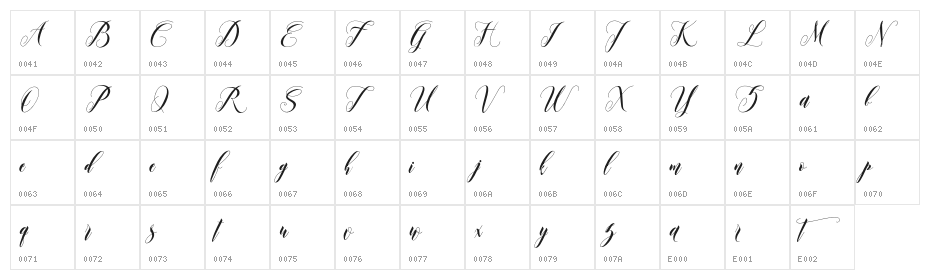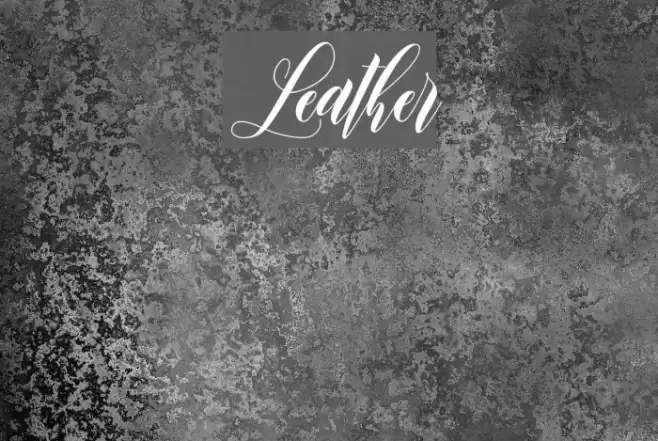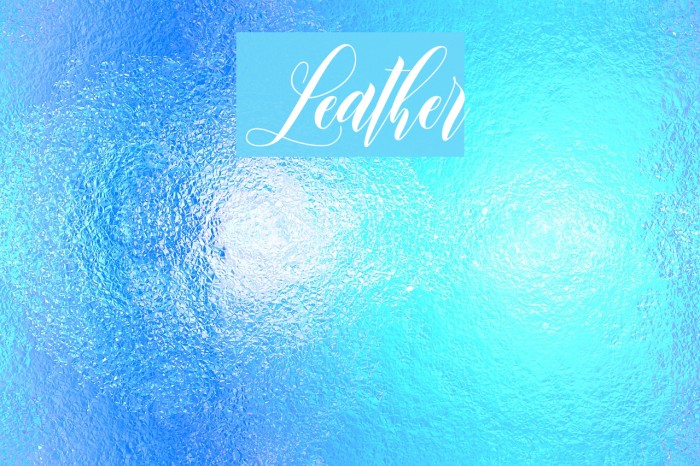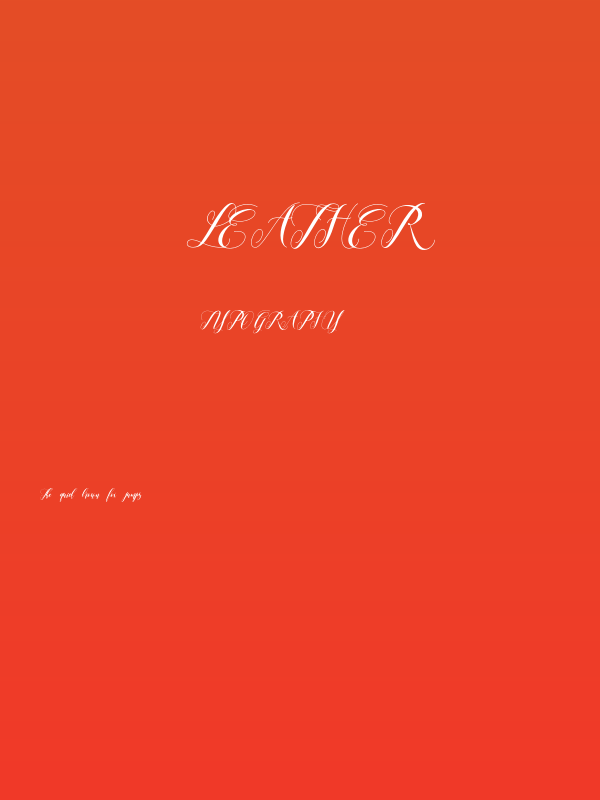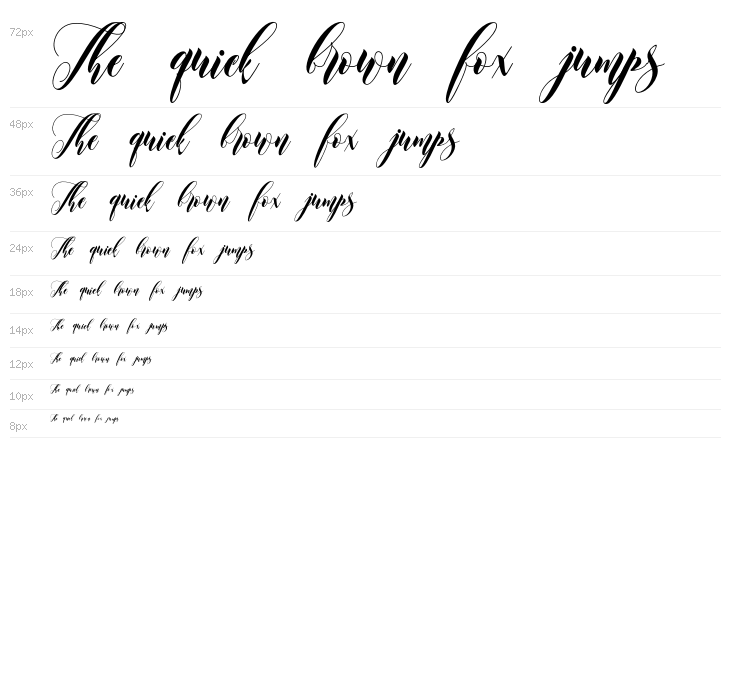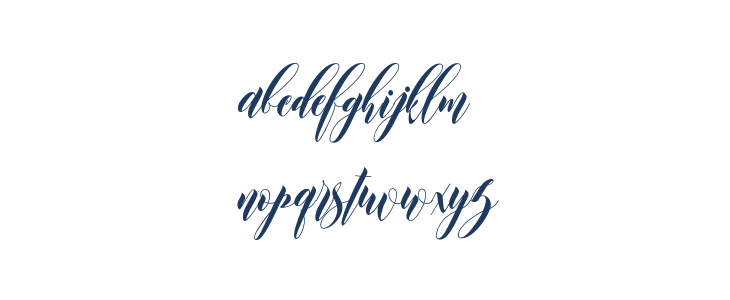
Leather Font
Leather Description
This elegant script font features intricate, flowing letterforms with high contrast between thick and thin strokes. The uppercase letters are adorned with elaborate swashes and flourishes, giving them a sophisticated and decorative appearance. The lowercase letters maintain a graceful, cursive style that complements the uppercase, with smooth connections between characters. The overall design exudes a sense of luxury and refinement, making it ideal for formal invitations, branding, and high-end product packaging. The font's artistic flair and attention to detail make it a standout choice for projects that require a touch of elegance.
| Proposed Projects | Ideal for wedding invitations, luxury branding, and elegant packaging. |